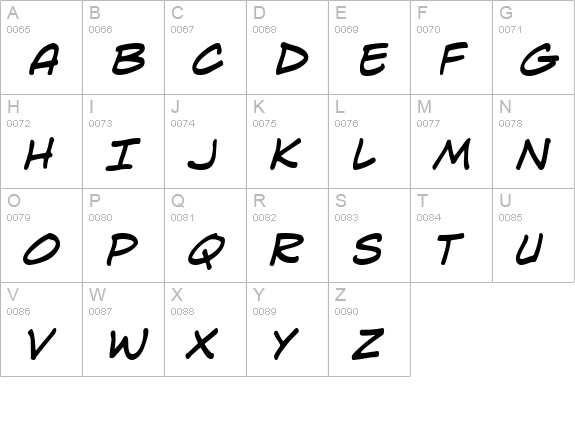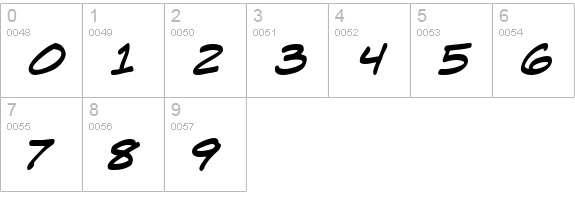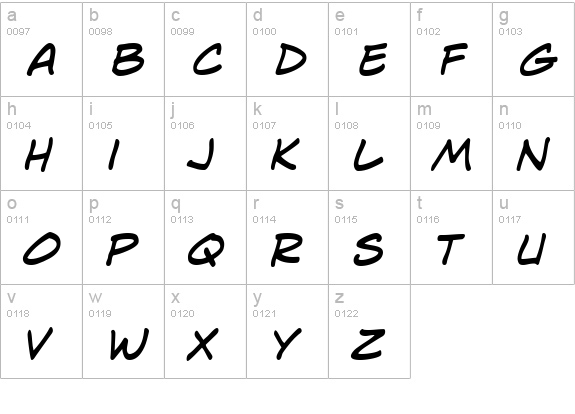
Lint McCree BB Italic Font Details
Lint McCree BB Italic is a distinctive, italic variant in the Lint typeface family \xE2\x80\x94 well suited to design and typography projects.
Lint McCree BB Italic font is a stylish and modern typeface that exudes sophistication and elegance. With its sleek and slanted design, this font adds a touch of flair to any project or design. The italicized letters create a sense of movement and dynamism, making it perfect for conveying a sense of energy and creativity. What sets Lint McCree BB Italic font apart is that it is available for free download at FontsMarket.com. This means that you can easily access this versatile font and use it in your personal or commercial projects without any cost. Whether you're working on a branding project, a website design, or a creative advertisement, Lint McCree BB Italic font is sure to make a lasting impression. Don't miss out on the opportunity to add this unique and eye-catching font to your collection. Download Lint McCree BB Italic font today and elevate your designs to the next level!